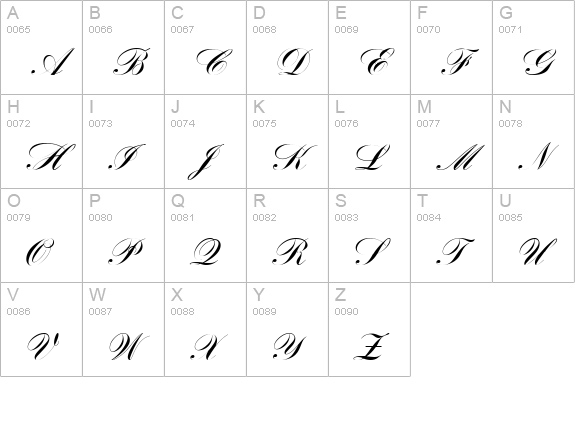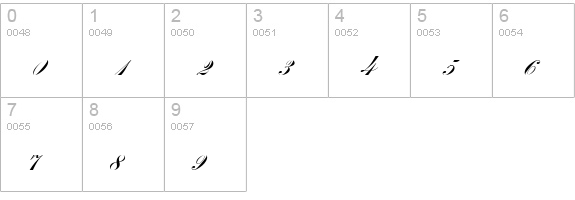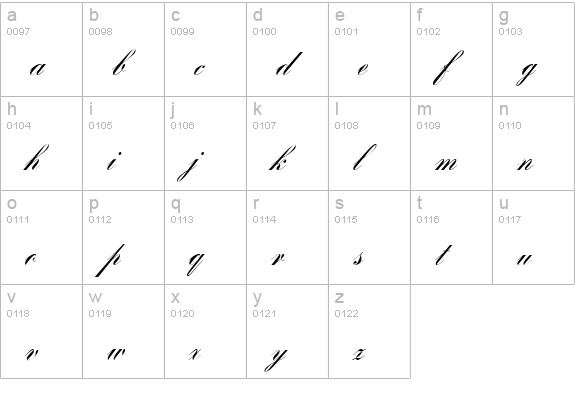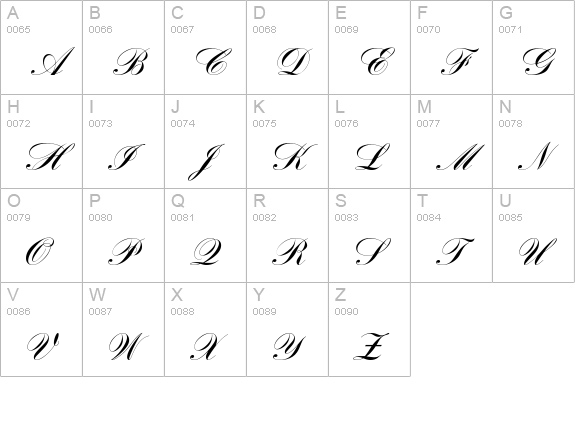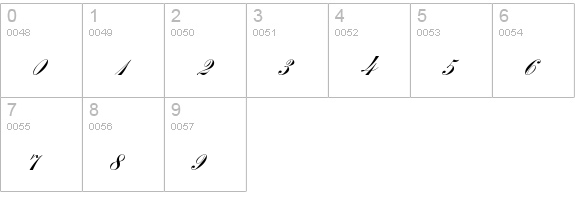
BayScript-Regular Font Details
BayScript-Regular is the standard, neutral variant in the BayScript typeface family \xE2\x80\x94 well suited to general body text, paragraphs, and standard typographic work.
BayScript-Regular is a beautiful and elegant handwritten font that exudes charm and sophistication. Its flowing and graceful letterforms make it perfect for a wide range of design projects, from branding to invitations to social media graphics. This versatile font is sure to add a touch of class to any project. Best of all, BayScript-Regular is completely free to download at FontsMarket.com, making it accessible to designers of all levels. Whether you're a professional graphic designer or just starting out, this font is a valuable addition to your toolkit. Don't miss out on the opportunity to enhance your designs with the timeless appeal of BayScript-Regular. Download it today and see the difference it can make in your projects.